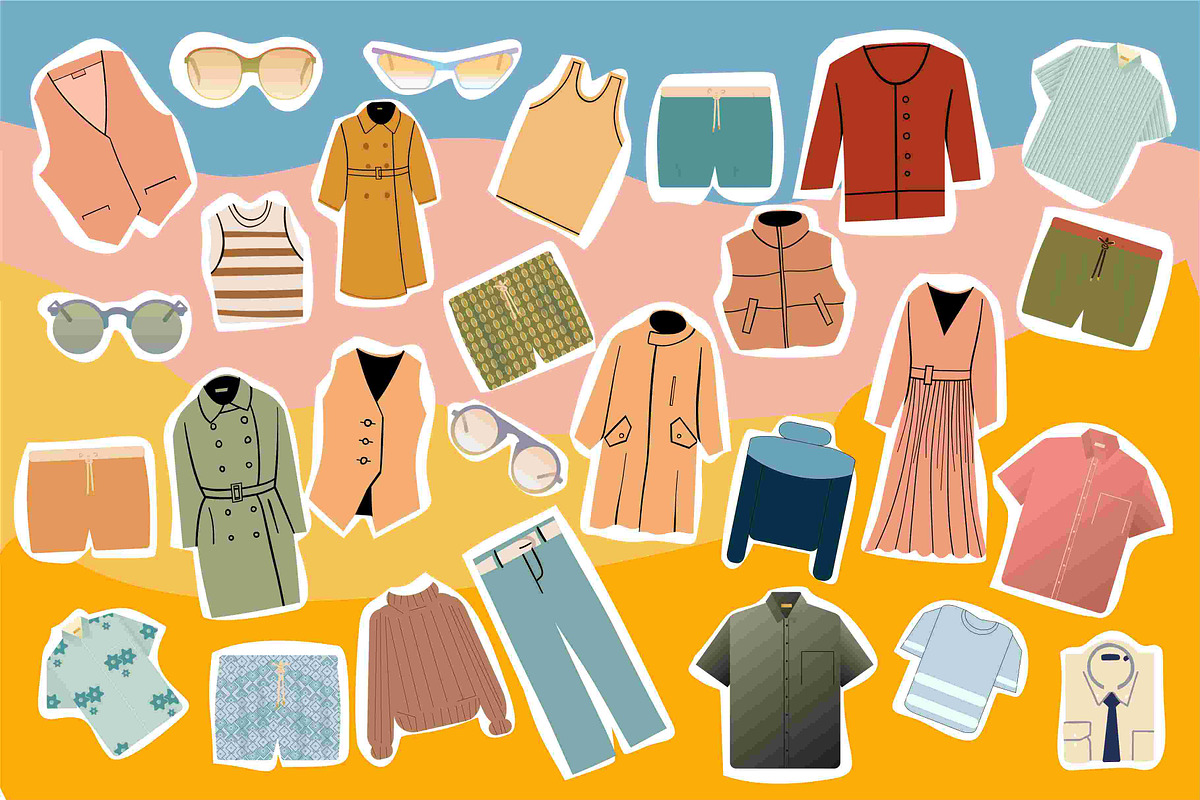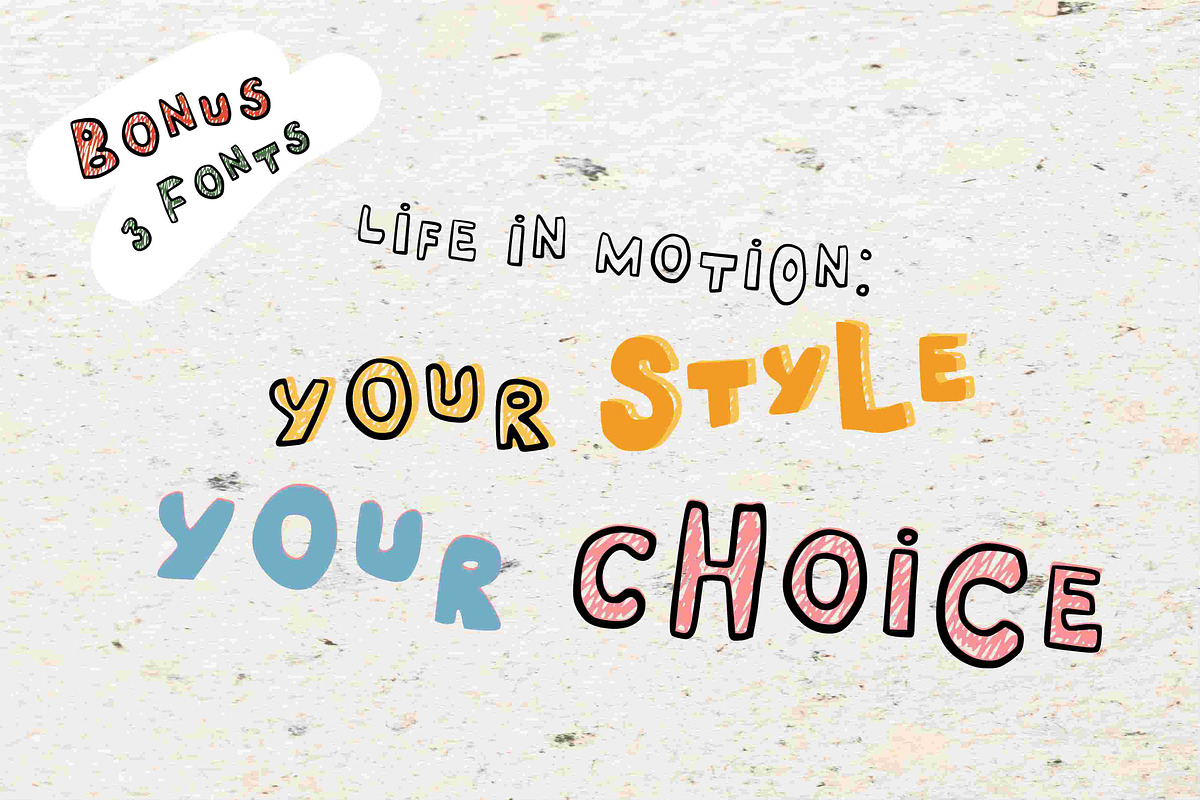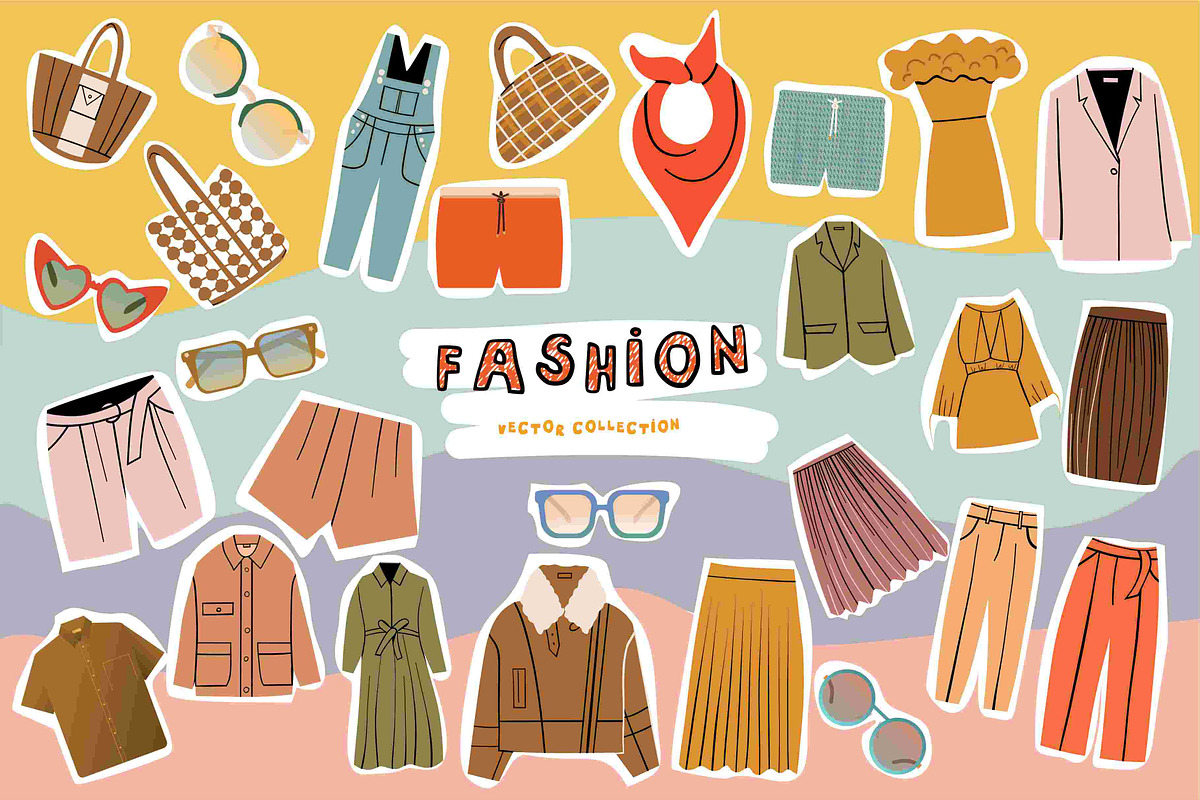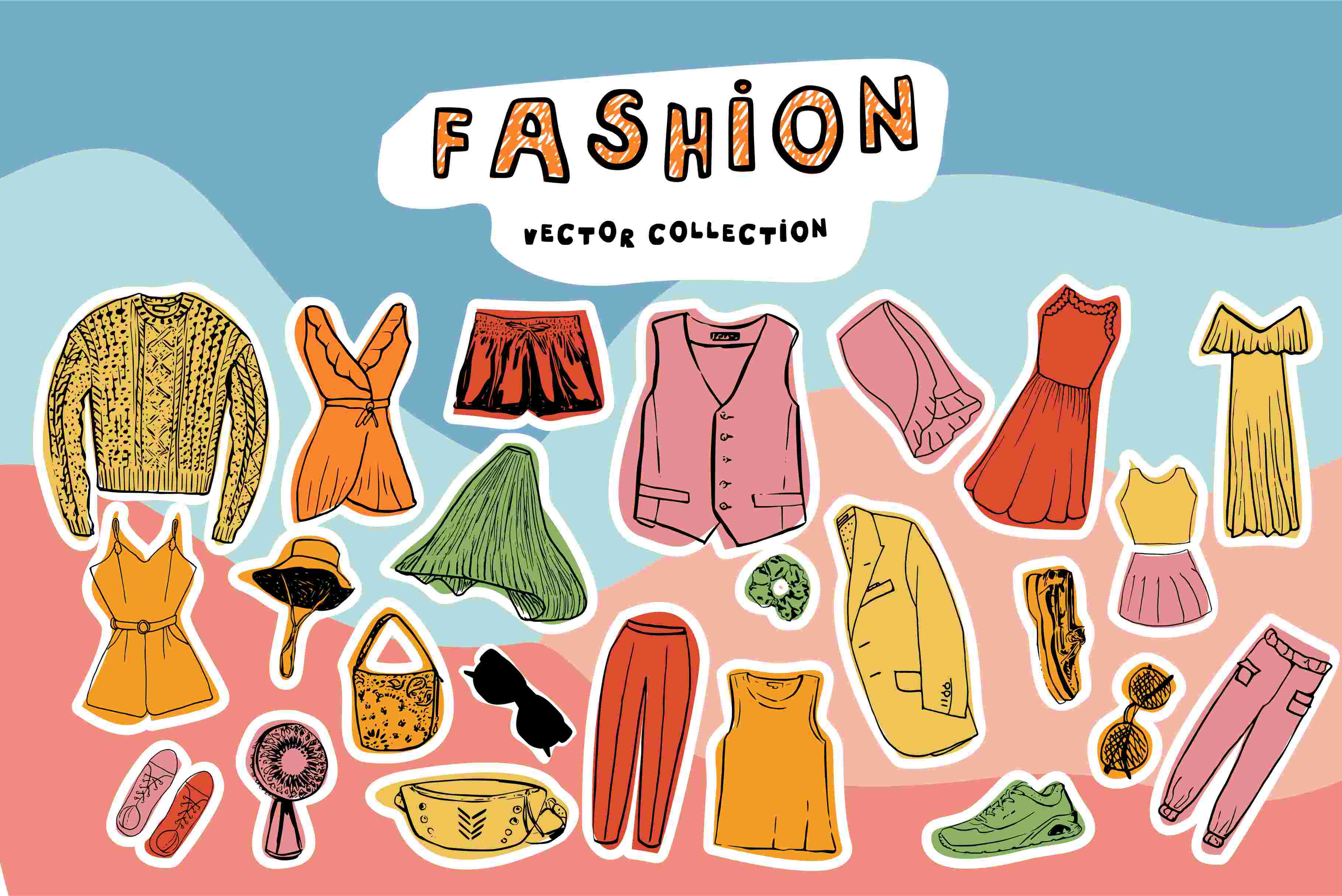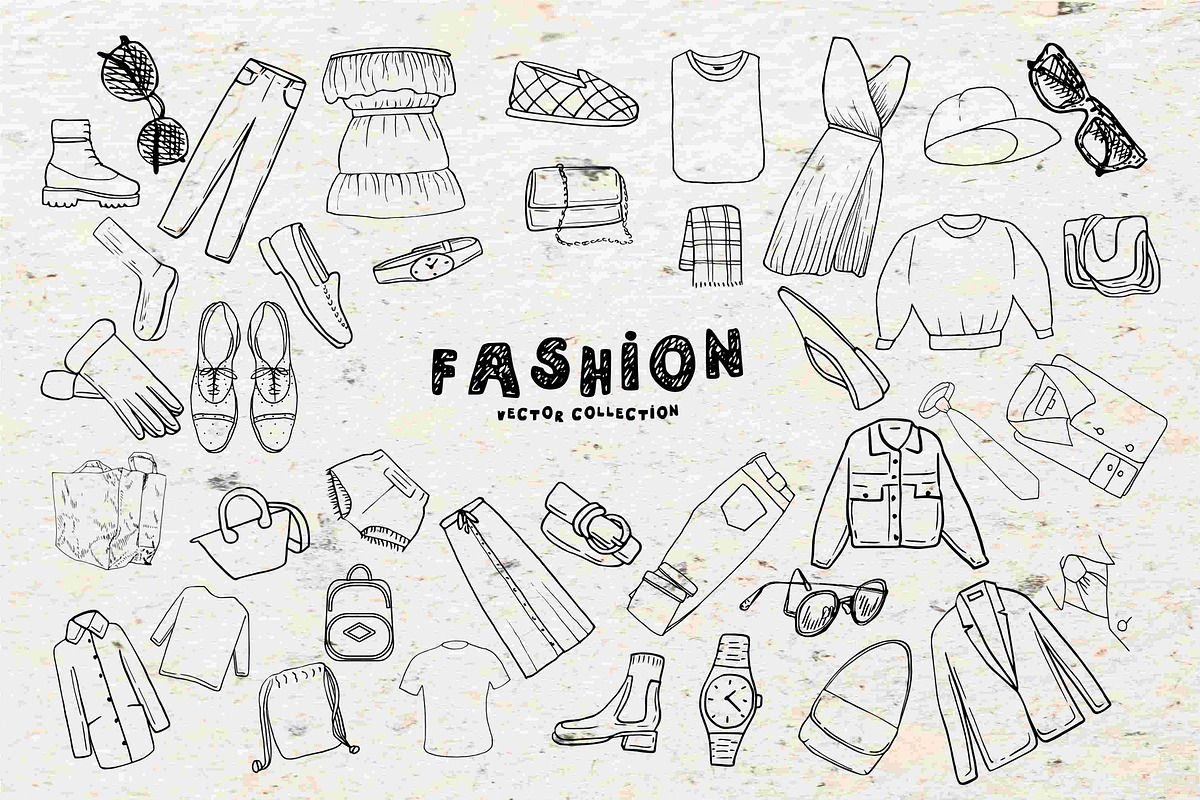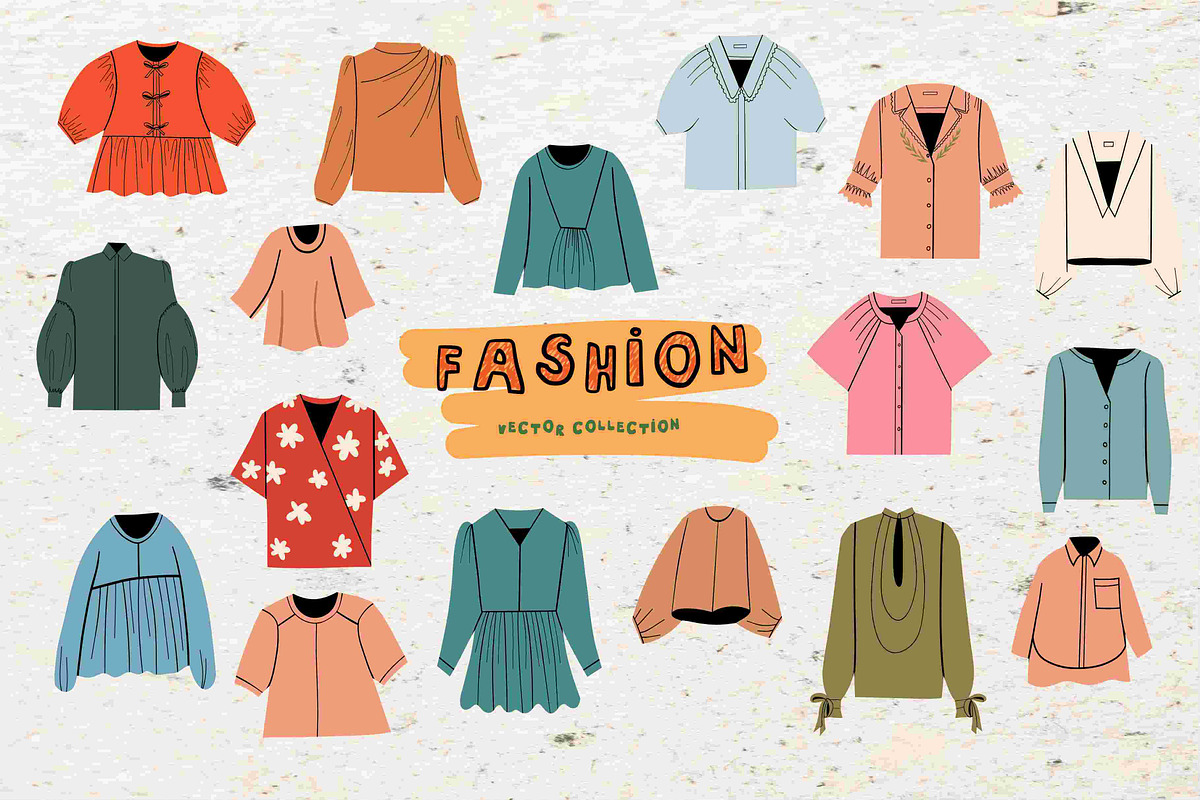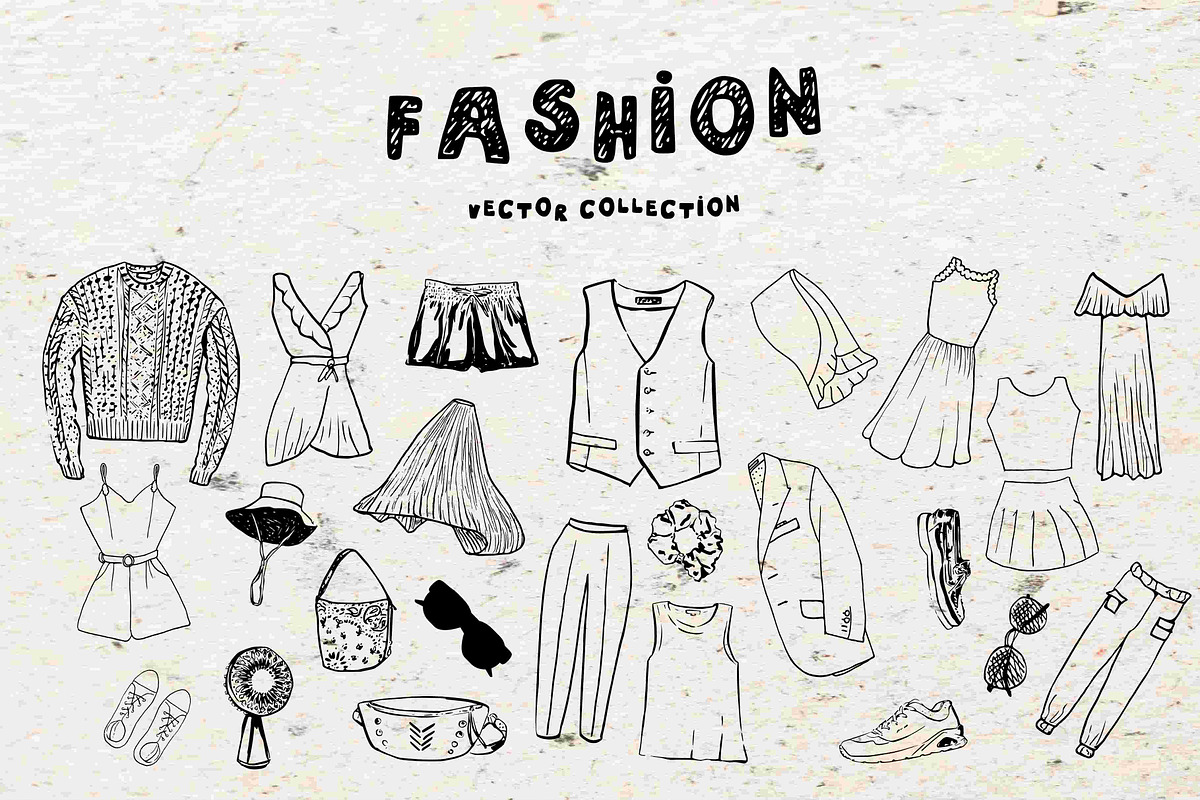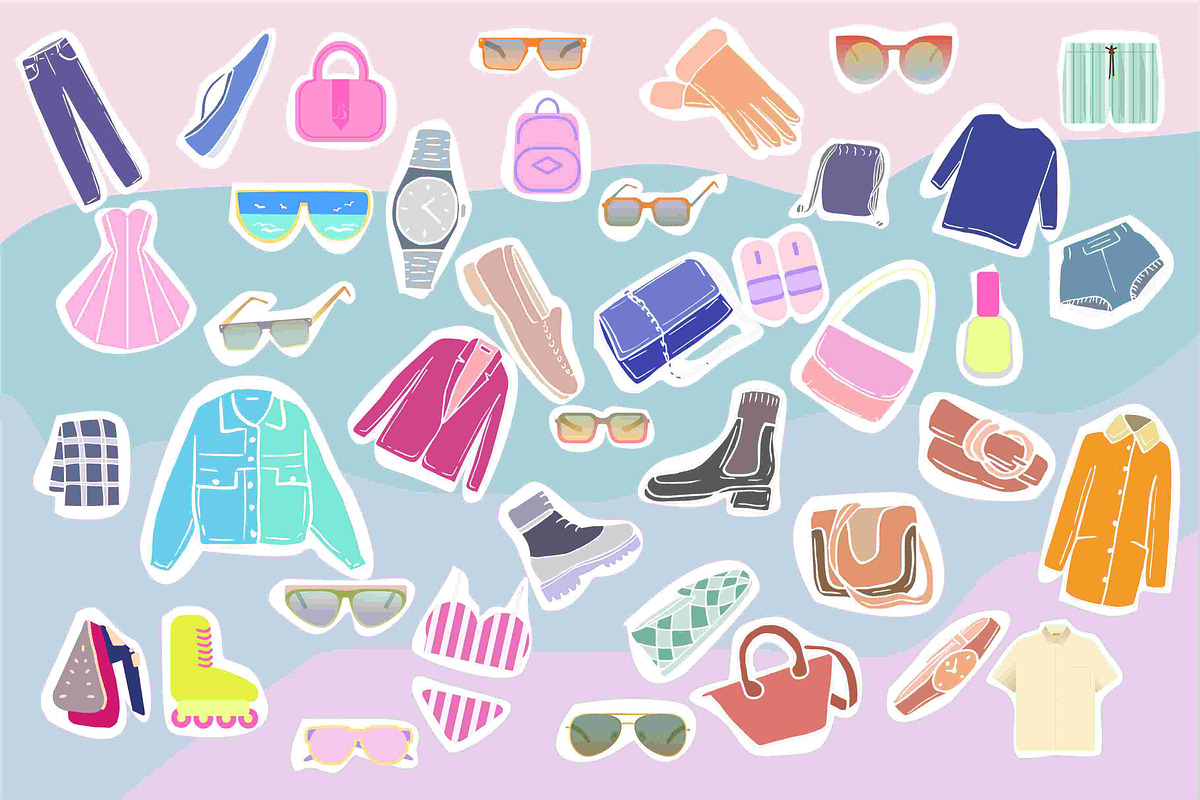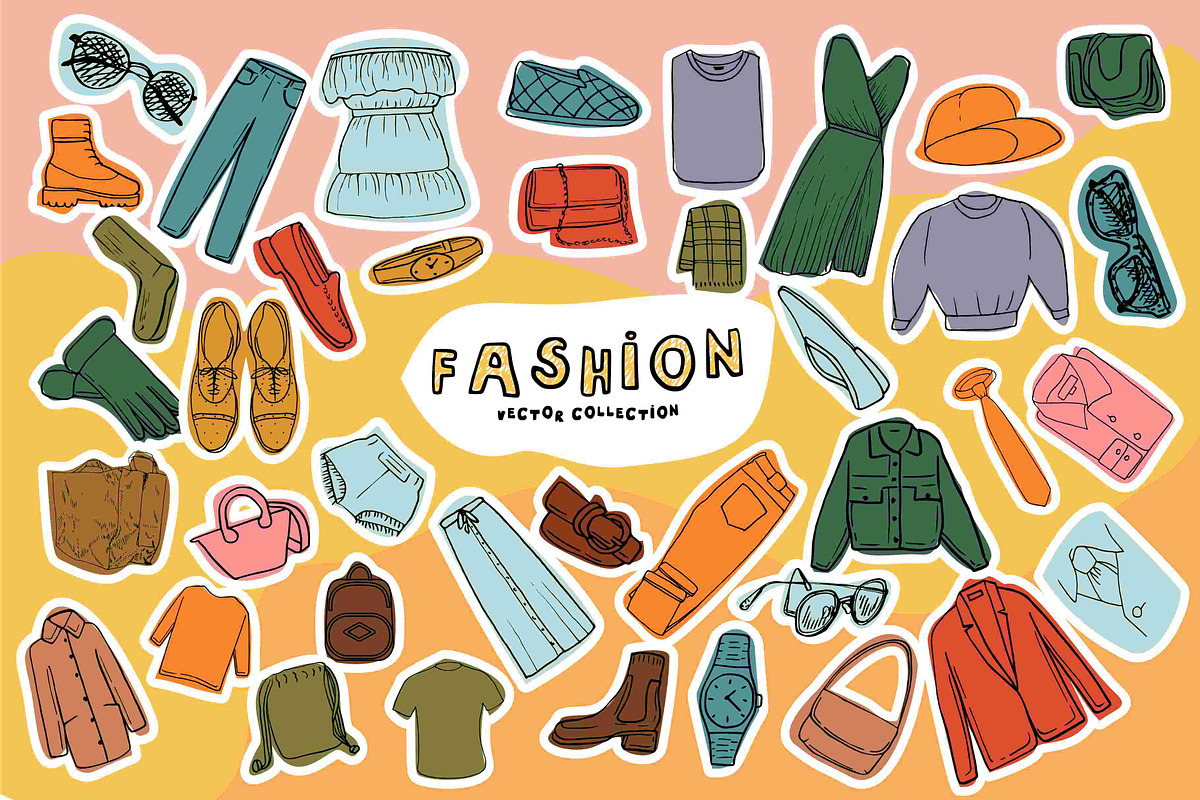
Fashion Vector Collection + Font
Unique Hand-Drawn Fashion Vector Collection + Bonus Fonts
Enhance your creative projects with this exclusive Fashion vector collection! Each illustration is carefully hand-drawn, showcasing a personal touch that adds originality and flair. As a special bonus, you'll also receive the unique Hand-drawn fonts"Strikeline Bold: outlined, simple, scribbled " to complement your designs. Perfect for designers, artists, and brands looking to make a statement.
- Authentic Hand-Drawn Artwork: Illustrations crafted with care to bring personality and charm to your projects.
- Fashion-Themed Creativity: A vibrant collection of clothing and accessory illustrations.
- Versatile Use: Ideal for branding, advertisements, packaging, digital art, and more.
- Bonus three Fonts – "Strikeline Bold : outlined, simple, scribbled": A bold, artistic typeface with hand-drawn character and dynamic design elements.
- Personal Touch: A rare combination of handcrafted artistry and professional polish.
- Stand Out: Add originality to your work with hand-drawn art and a bonus custom font.
- Save Time: Ready-to-use vectors and font make designing fast and effortless.
- Unleash Creativity: Perfect for expressing fashionable, bold ideas.
Elevate your designs with a unique combination of hand-drawn illustrations and font magic. The fashion vector collection and the bonus "Strikeline Bold" typeface are sure to bring impact, originality, and charm to your projects. Available now!